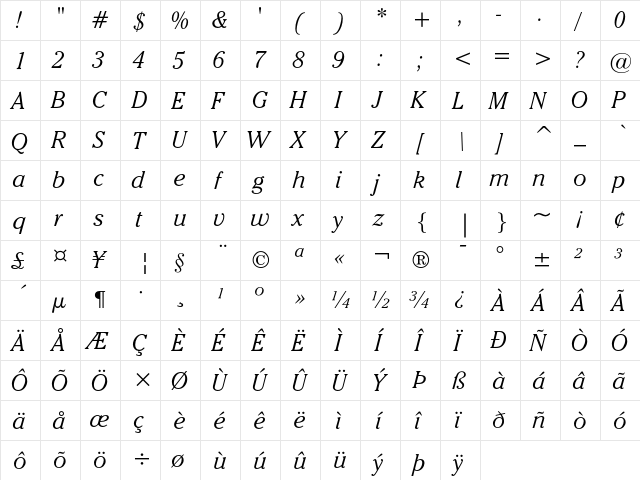
ITC Cheltenham Light Italic Font Preview
ITC Cheltenham Light Italic
Design Context for ITC Cheltenham Typeface
ITC Cheltenham is a composed and adaptable typeface that performs quietly and consistently across a wide range of design contexts. The slanted form adds forward momentum and visual energy. The delicate stroke weight brings airiness and refinement to layouts.